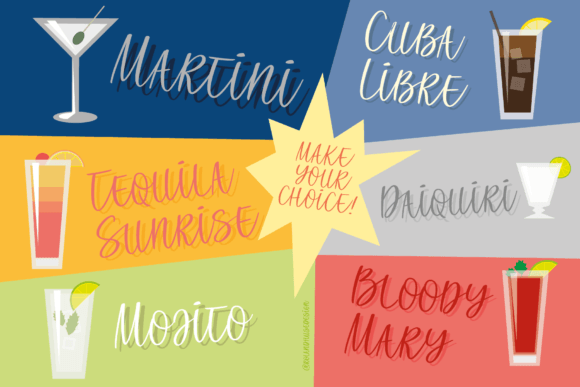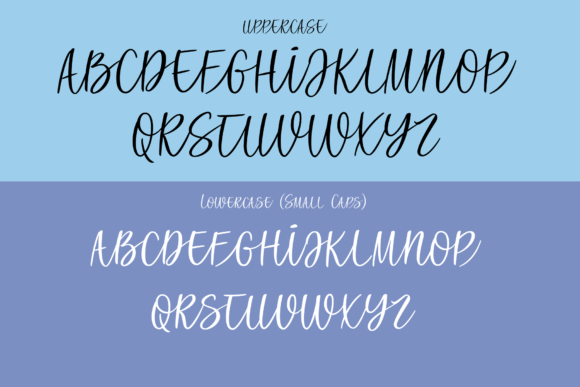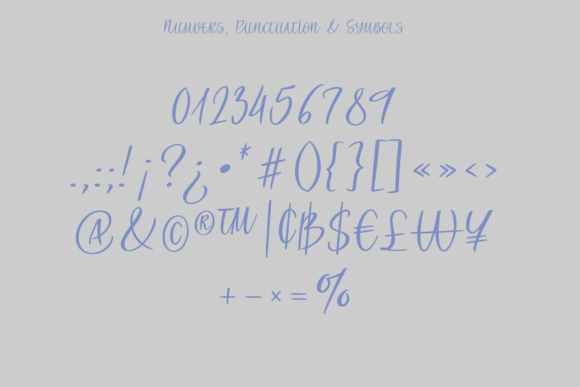
Introduction to All Caps Script Font
All Caps Script Font.
You are not supposed to type All Capitals with most cursive script fonts Because it doesnโt look good.
Key Features of All Caps Script Font
Why Choose All Caps Script Font?
All Caps Script Font offers exceptional quality and versatility, making it a valuable addition to your design toolkit. Whether you’re creating for personal projects or commercial use, All Caps Script Font delivers professional results.